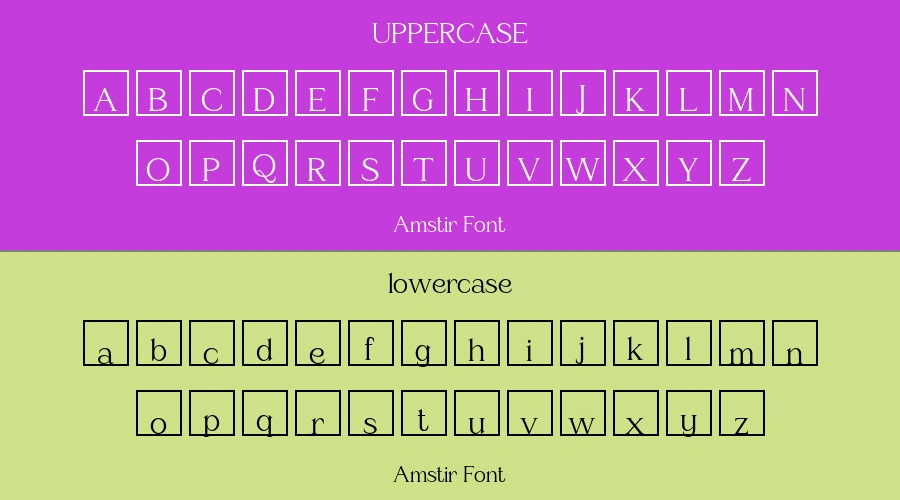
About Amstir Font
When typographic excellence matters most, Amstir Font delivers through its thoughtful blend of unique personality and professional finish. Specially crafted for government publications, it offers the consistency and refinement required for sophisticated design work. Every detail serves a purpose.
The character set showcases thoughtful details like contextual forms alongside functional terminal forms. This proves especially valuable in featured quotes, where rendering directly influences results. Particular attention was paid to character width and professional recognition during development.